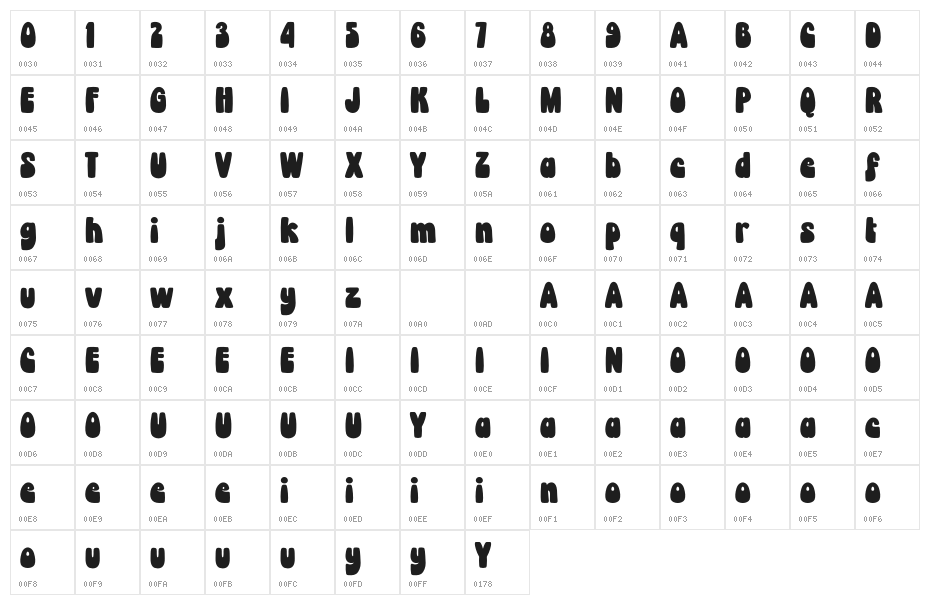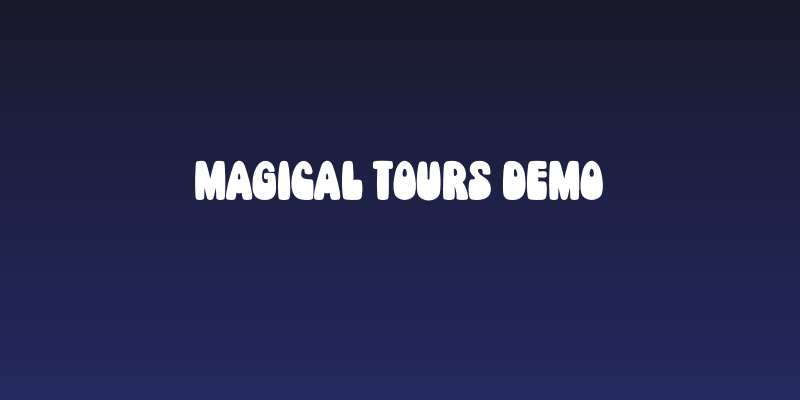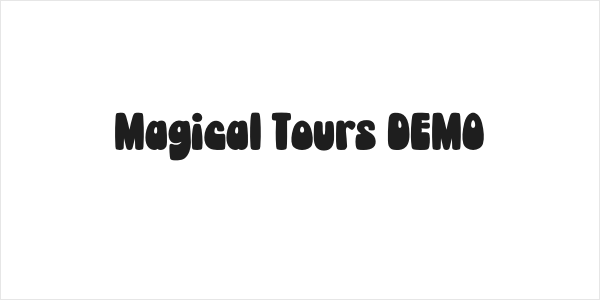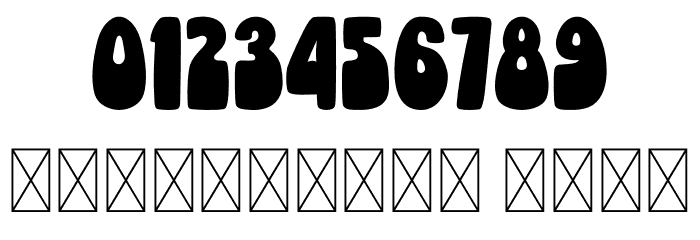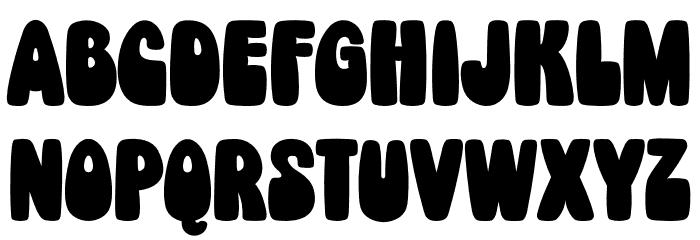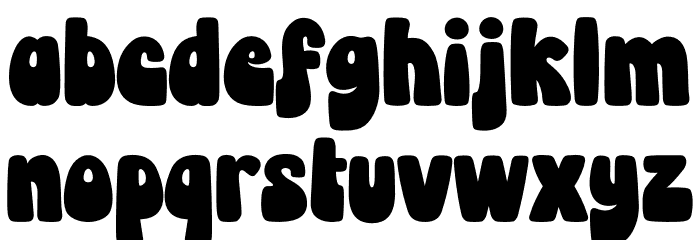
Magical Tours DEMO Font
Magical Tours DEMO Description
This font features a bold and playful design with rounded, bubbly characters that convey a sense of fun and whimsy. The letters are thick and have a uniform stroke width, giving them a strong presence. The overall style is reminiscent of retro or vintage designs, making it ideal for projects that require a touch of nostalgia. The characters are closely spaced, enhancing the compact and cohesive look of the text. Despite its boldness, the font maintains a friendly and approachable appearance, suitable for a variety of creative applications.
| Proposed Projects | Ideal for children's books, playful branding, retro-themed posters, and party invitations. |